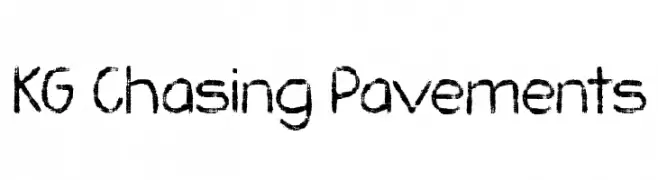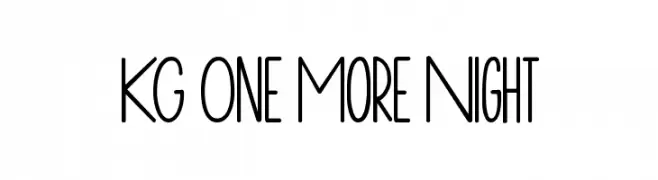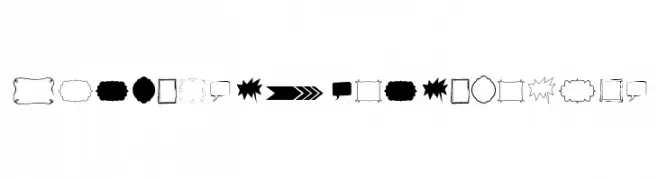
A playful, handwritten font with tall, narrow characters and a casual style.
A playful, outlined font with rounded, smooth characters and a whimsical style.
A playful, hand-drawn font with tall, narrow letters and a whimsical style.
Hand-drawn decorative frames and comic elements in a playful style.
A playful, hand-drawn font with a textured, sketch-like appearance.
A playful, elongated font with rounded edges and uniform stroke width.
A textured, hand-drawn font with a bold, artistic style.
A playful, decorative set of frames and arrows with unique patterns and handwritten words.
Geometric and hand-drawn bar and line shapes for educational diagrams.